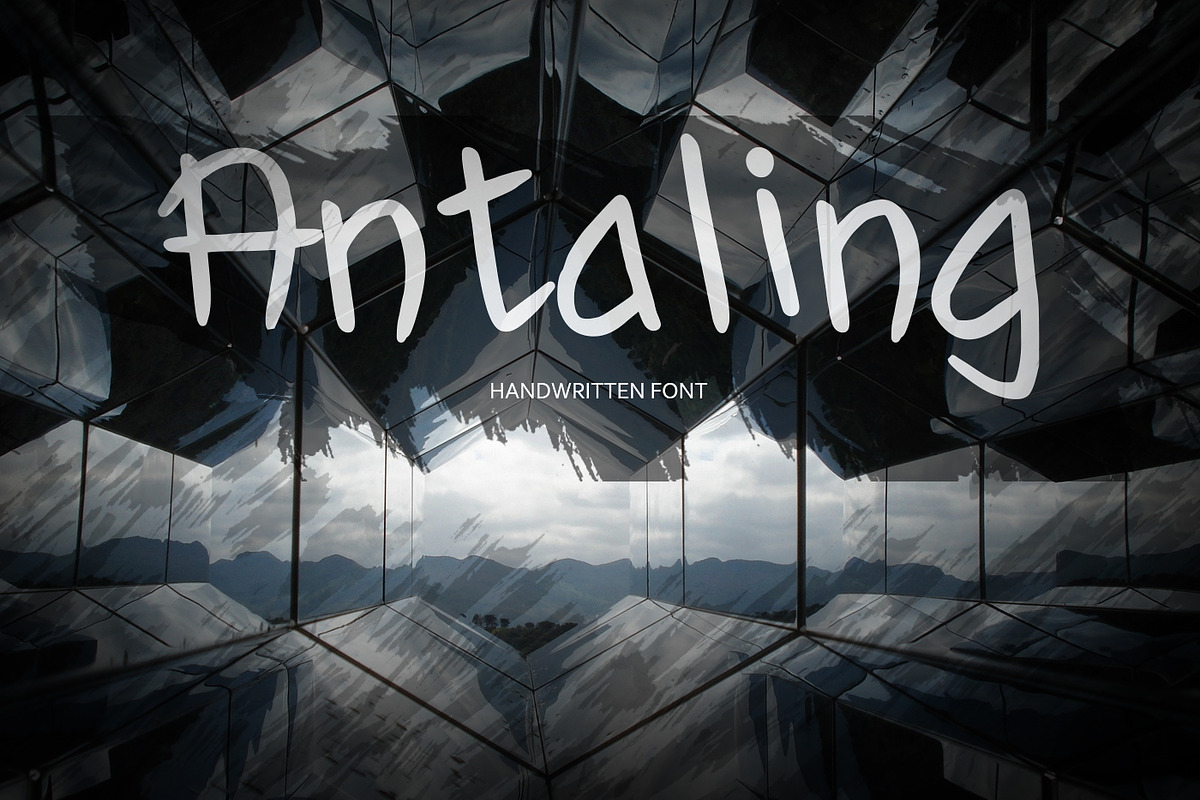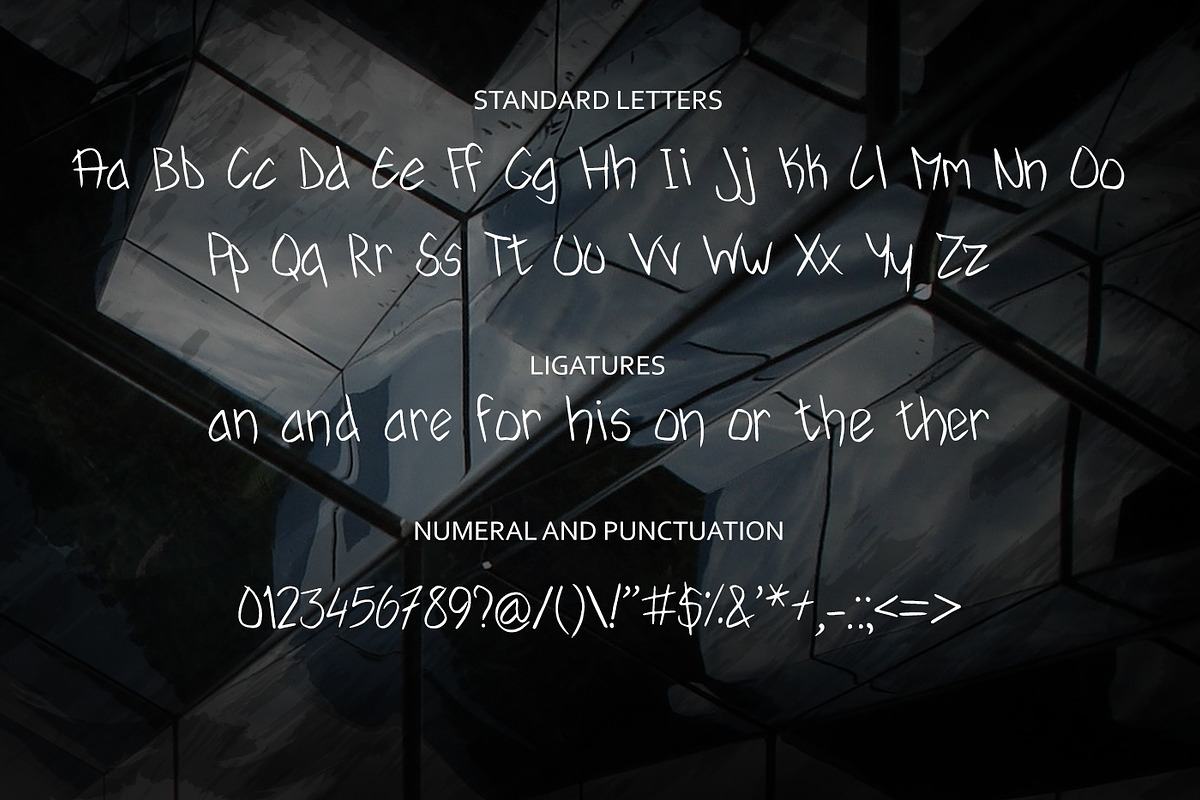
Antaling Font
Antaling Font by DmDesignsStoreArt is a font selected for branding, posters, packaging, typography.
Why Antaling Font is worth a look
Antaling Font by DmDesignsStoreArt fits naturally into Branding, posters, packaging, typography.